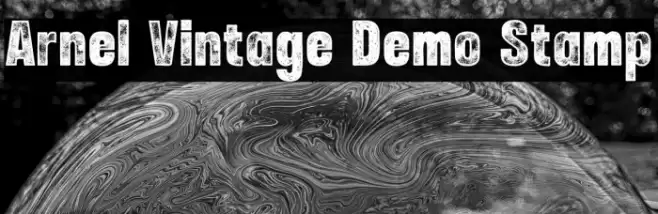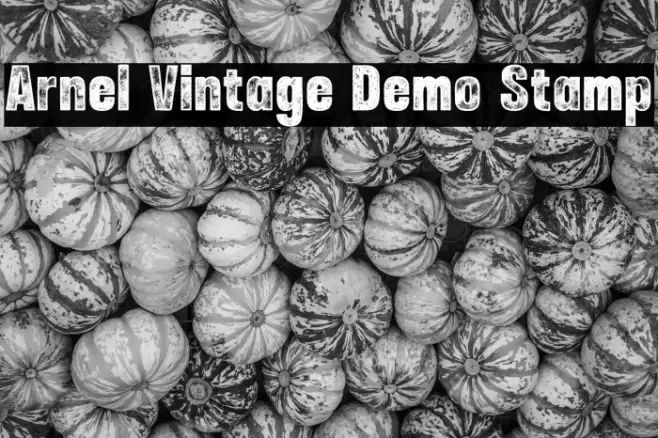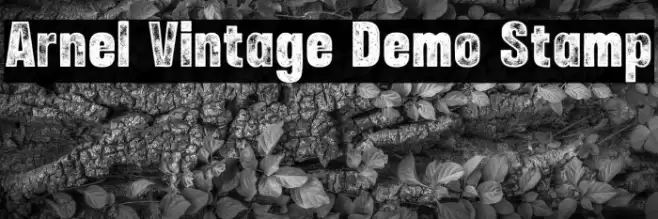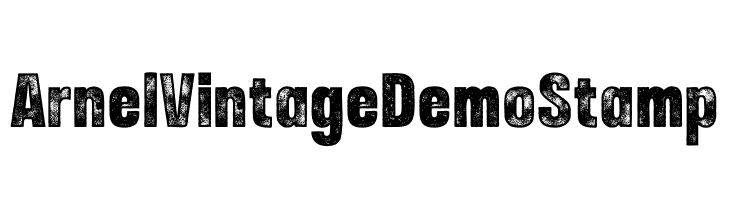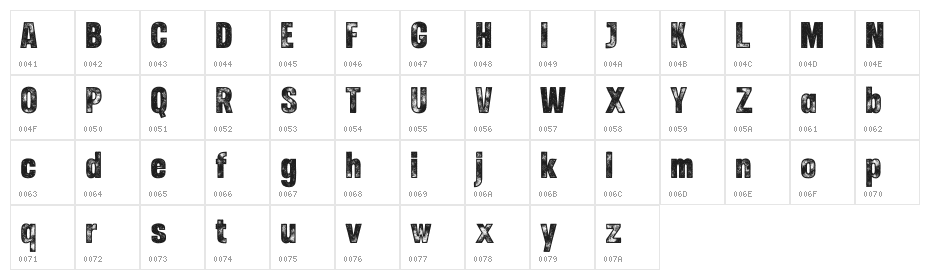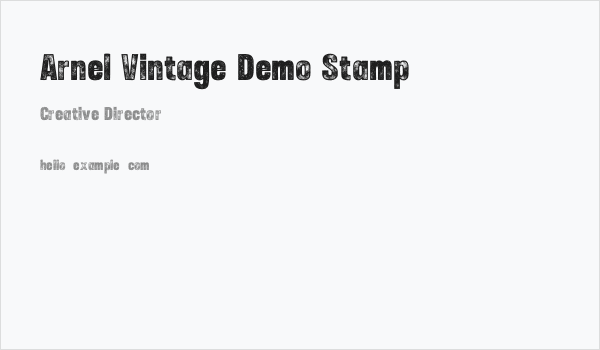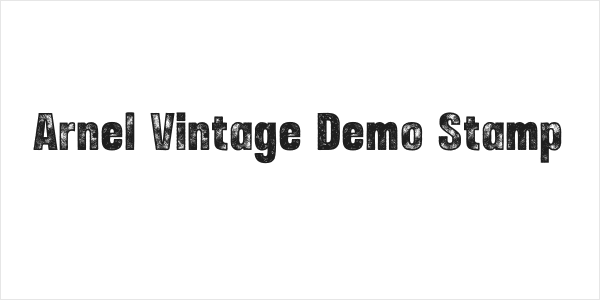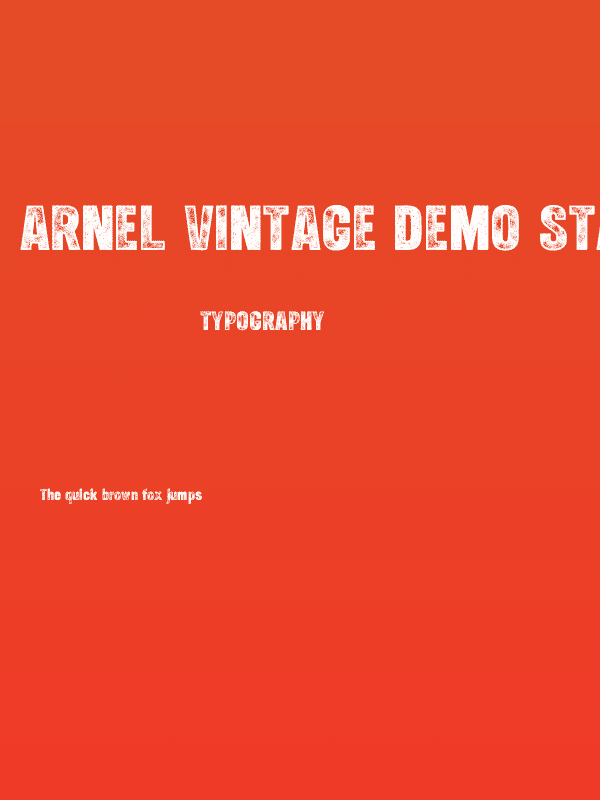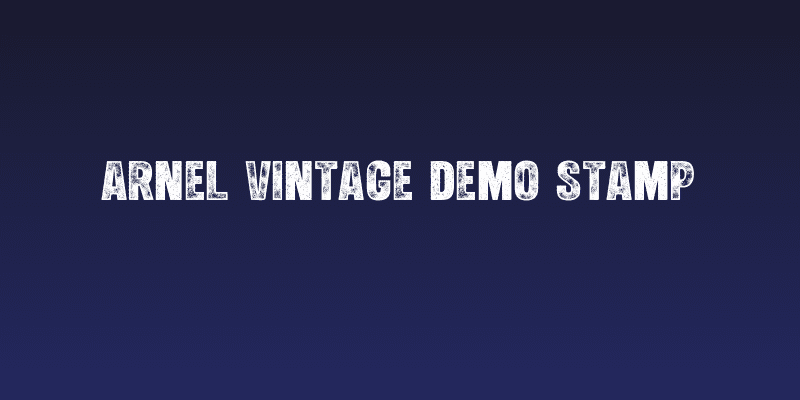
Arnel Vintage Demo Stamp Font
Arnel Vintage Demo Stamp Description
This font features a bold, distressed style with a vintage stamp-like appearance. The characters are robust and display a textured, weathered effect, giving them a rugged and aged look. The uppercase and lowercase letters maintain a consistent weight, while the numbers and special characters follow the same design aesthetic. The font's unique texture adds character and depth, making it stand out in any design. Its boldness and distinctive style make it suitable for projects that require a strong visual impact.
A bold, distressed font with a vintage, stamp-like texture from Retro fonts.
- Font: Arnel Vintage Demo Stamp
- Proposed Projects: Ideal for vintage-themed posters, branding, packaging, and logo designs that require a bold, textured appearance.
- Overall Style: Vintage
- Use Case: Logos, Posters, Branding